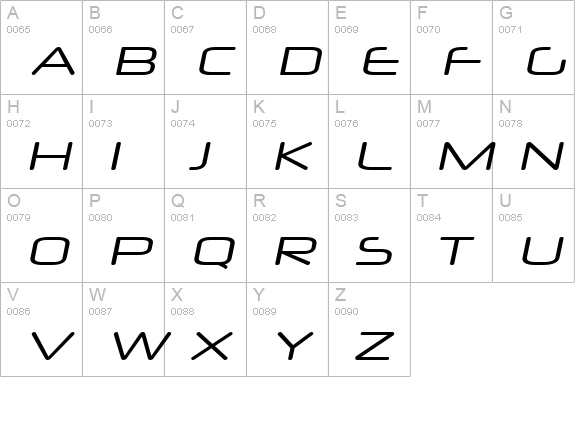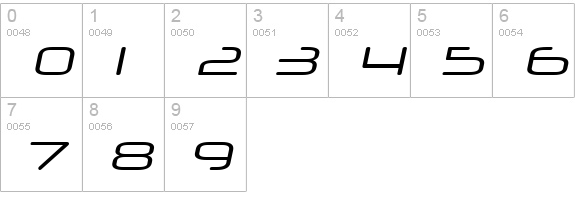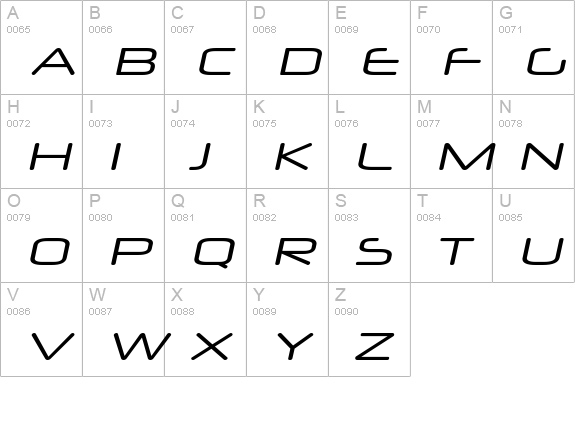
Neuropol X Xp Italic Font Details
Neuropol X Xp Italic is a distinctive, italic variant in the Neuropol typeface family \xE2\x80\x94 well suited to design and typography projects.
Neuropol X Xp Italic font is a modern and sleek typeface that exudes a futuristic vibe. Its bold, italicized design makes it perfect for adding emphasis and style to your projects. The sharp edges and geometric shapes give this font a unique and edgy look that will make your text stand out. The Neuropol X Xp Italic font is available for free download at FontsMarket.com, making it easily accessible for any designer or creative individual looking to make a statement with their typography. Whether you're working on a poster, website design, or branding project, this font is sure to add a touch of sophistication and modernity to your work. Don't miss out on the opportunity to enhance your designs with this eye-catching and dynamic font.